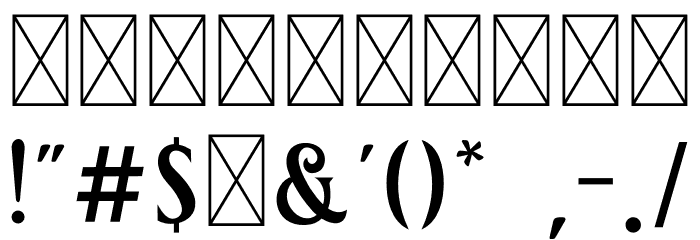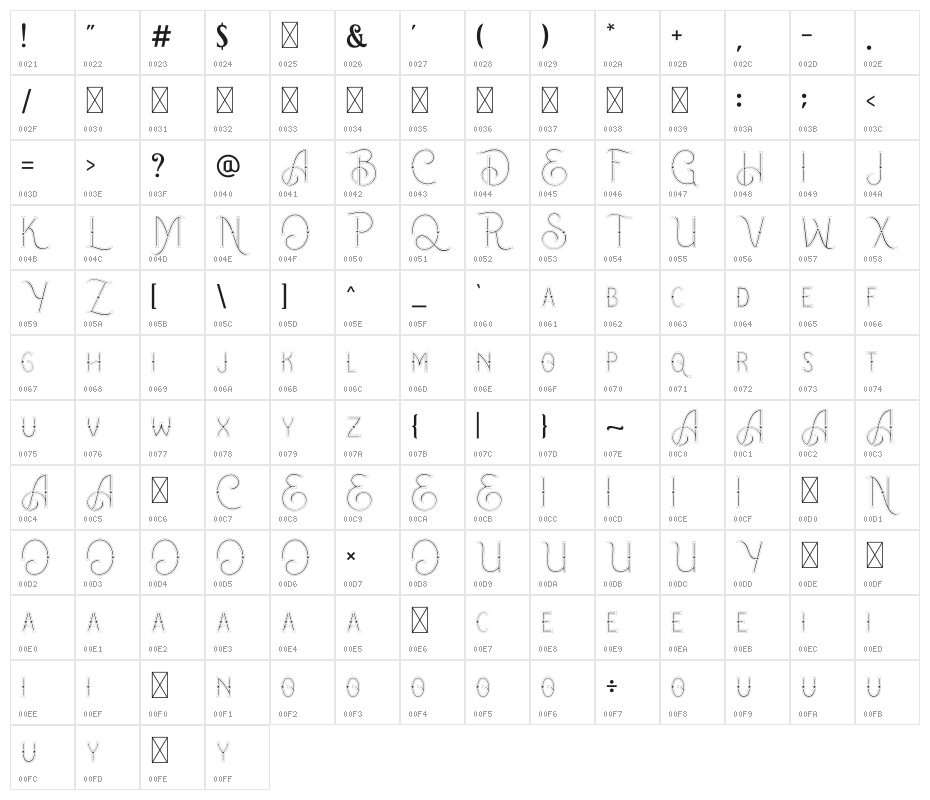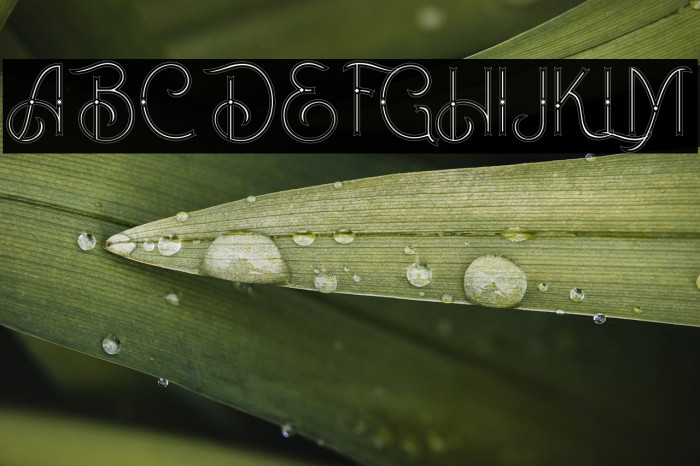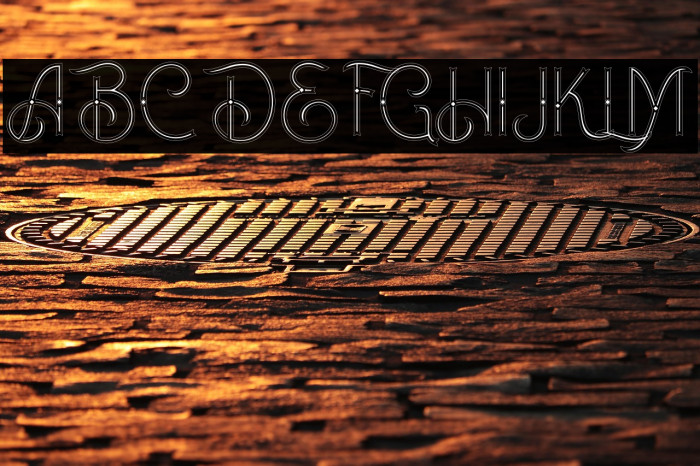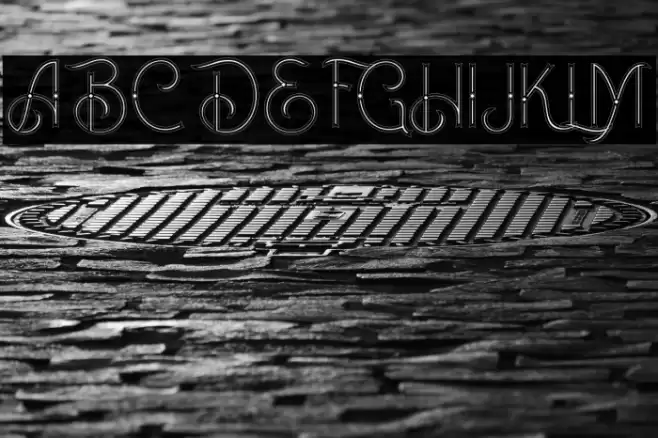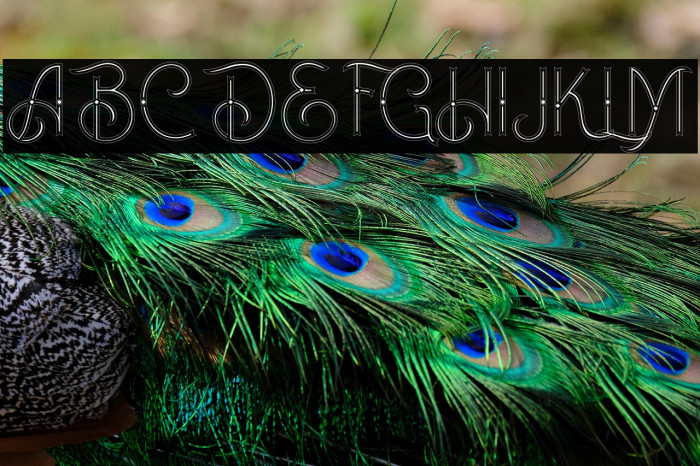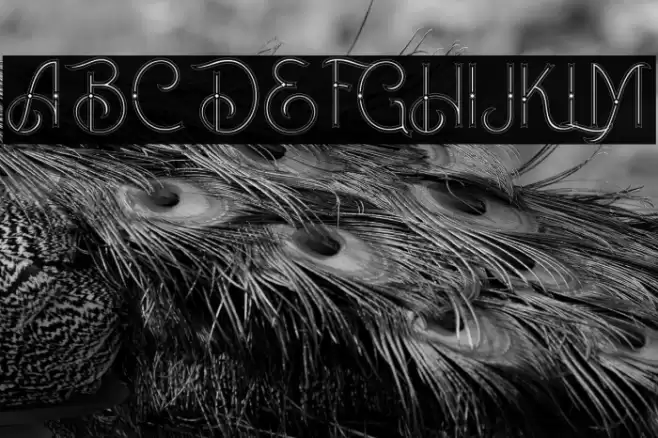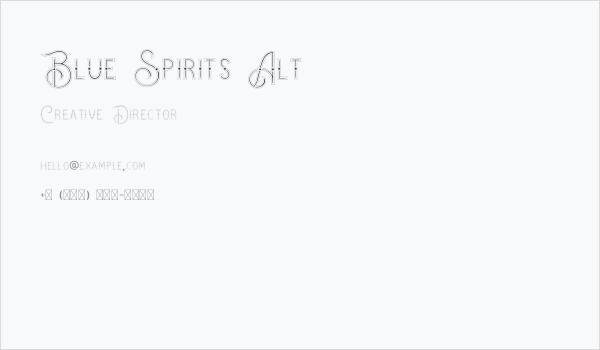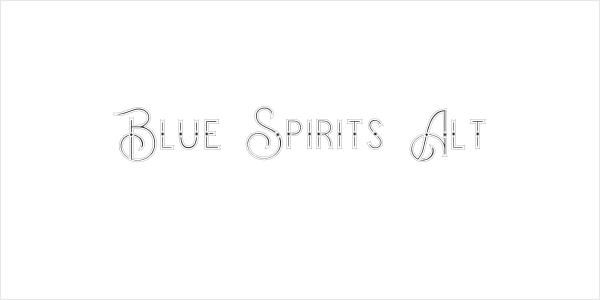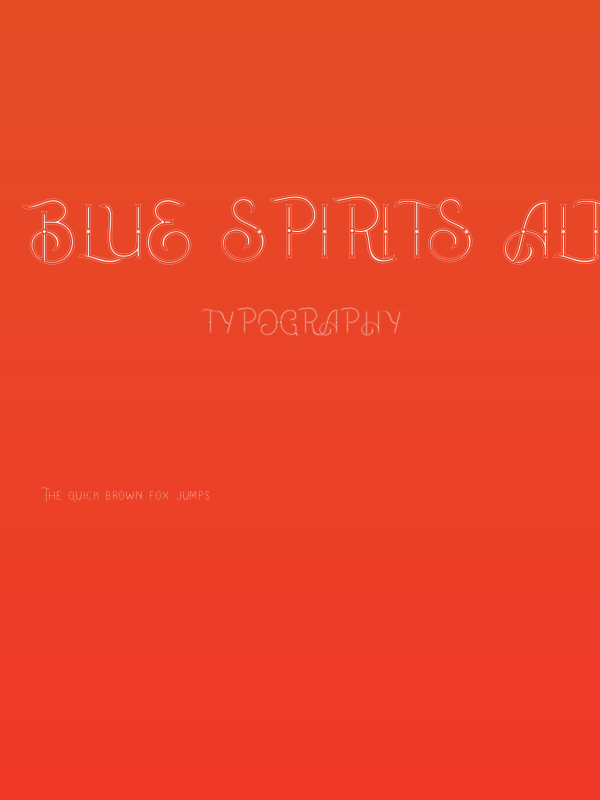
Blue Spirits Alt Font
Blue Spirits Alt Description
This font features a unique and artistic design with intricate line work and geometric elements. The uppercase letters are adorned with decorative loops and curves, creating a sense of elegance and sophistication. The lowercase letters maintain a consistent style, with a focus on symmetry and balance. The numbers and special characters follow the same design principles, ensuring a cohesive look across all elements. The overall appearance is both modern and vintage, making it versatile for various design projects.
| Proposed Projects | Ideal for branding, logo design, invitations, and decorative posters. |